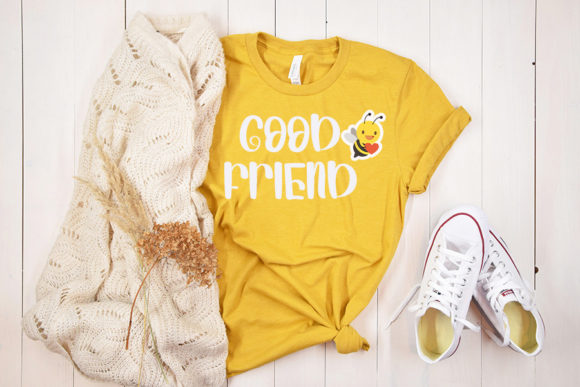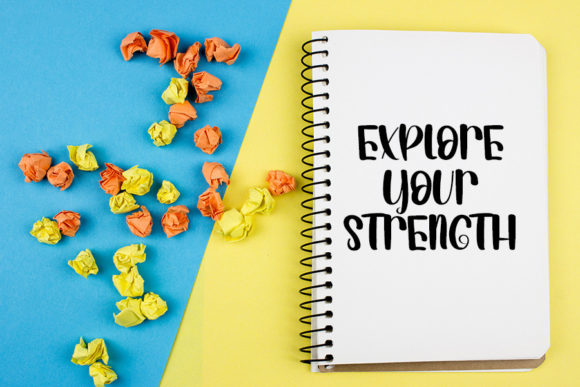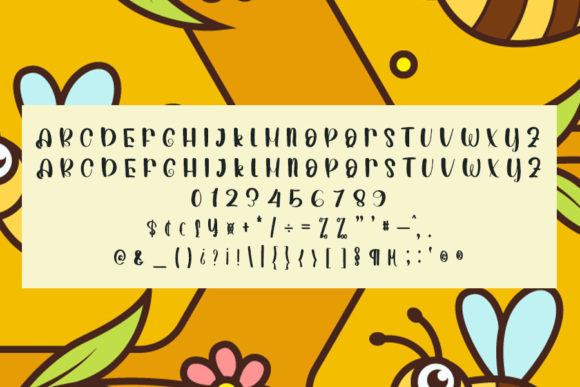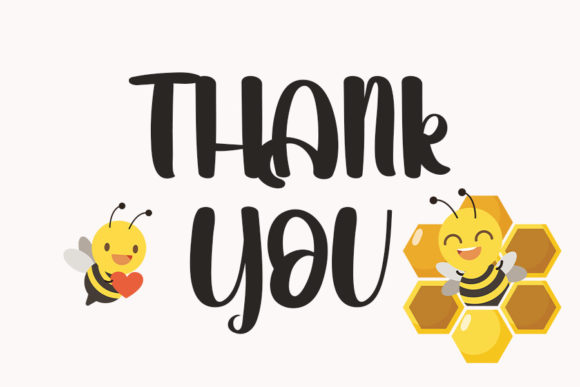
Bee Friend Font: The Perfect Companion for Your Design Projects
Are you tired of using the same old fonts for your design projects? Look no further than Bee Friend Font, a smart, quirky, and adaptable display font that’s sure to add a relaxed touch to your creations. With its informal style and casual vibe, Bee Friend is the perfect choice for designers and crafters who want to add a personal touch to their work.
What Makes Bee Friend Font So Special?
Bee Friend Font is more than just a font – it’s a statement. Its unique and quirky design makes it stand out from the crowd, adding a touch of personality to any project. Whether you’re working on a logo, a poster, or a social media graphic, Bee Friend is sure to make your design pop.
One of the things that sets Bee Friend apart is its adaptability. This font is versatile and can be used in a variety of contexts, from formal to informal, and from digital to print. Whether you’re designing for a client or working on a personal project, Bee Friend is a great choice.
The Benefits of Using Bee Friend Font
So why choose Bee Friend Font for your next design project? Here are just a few benefits:
- Unique and quirky design: Bee Friend Font has a one-of-a-kind design that’s sure to make your project stand out.
- Adaptable: This font is versatile and can be used in a variety of contexts, from formal to informal, and from digital to print.
- Easy to read: Despite its quirky design, Bee Friend Font is easy to read, making it perfect for body text and headlines.
- Perfect for creative projects: If you’re working on a creative project, such as a craft or DIY tutorial, Bee Friend Font is a great choice.
How to Use Bee Friend Font in Your Design Projects
Using Bee Friend Font in your design projects is easy. Here are a few tips:
- Pair it with a sans-serif font: For a classic look, pair Bee Friend Font with a sans-serif font, such as Arial or Helvetica.
- Use it for headlines: Bee Friend Font is perfect for headlines and titles, adding a touch of personality to your design.
- Experiment with different colors: Bee Friend Font looks great in a variety of colors, so don’t be afraid to experiment and find the perfect hue for your project.
Who is Bee Friend Font For?
Bee Friend Font is perfect for:
- Designers: If you’re a designer looking for a unique and quirky font to add to your collection, Bee Friend is a great choice.
- Crafters: If you’re a crafter or DIY enthusiast, Bee Friend Font is perfect for adding a personal touch to your projects.
- Small business owners: If you’re a small business owner looking for a font that will help you stand out from the competition, Bee Friend is a great choice.
In conclusion, Bee Friend Font is a smart, quirky, and adaptable display font that’s perfect for designers and crafters who want to add a relaxed touch to their creations. With its unique and quirky design, adaptability, and ease of use, Bee Friend is sure to become a go-to choice for anyone looking for a font that will make their project stand out.